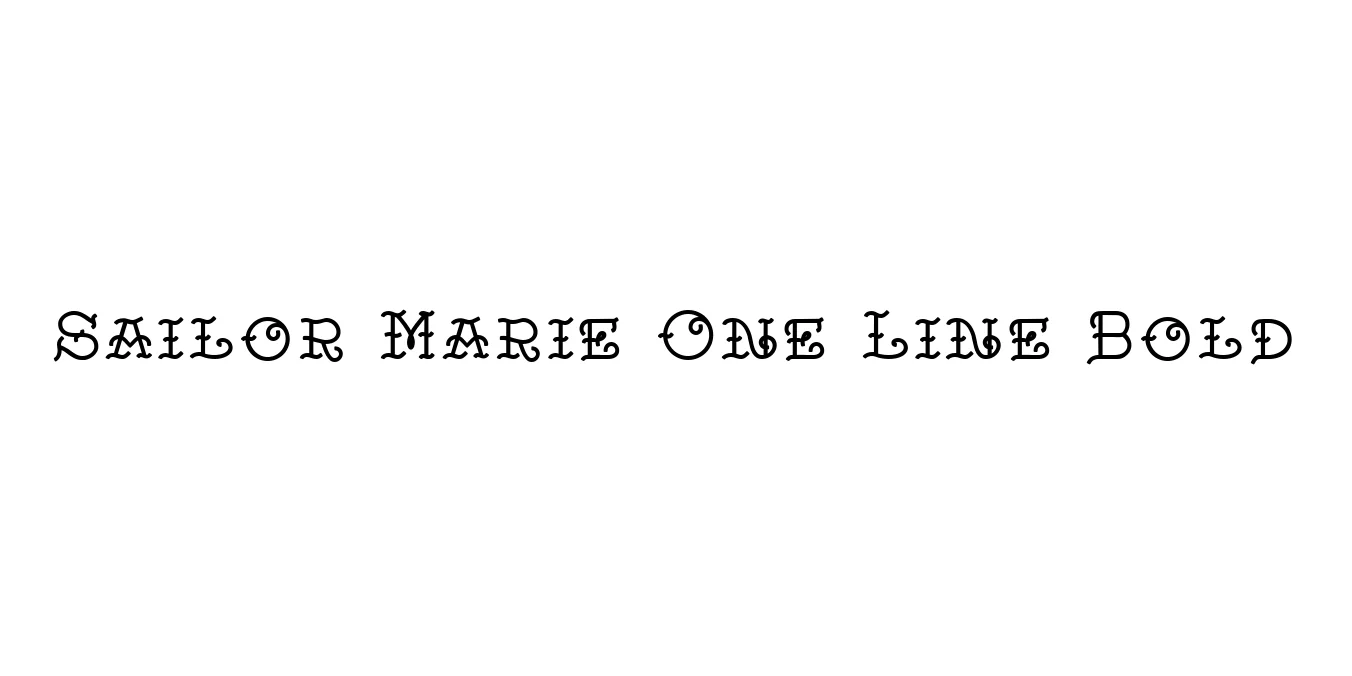
Sailor Marie One Line Bold
Sailor Marie One Line Bold is a specialized typeface designed specifically for modern crafting and precision engineering. Unlike traditional fonts that feature an outline, this single-line font is meticulously constructed from a single continuous path, making it the ideal choice for pen plotting, laser engraving, and CNC machining. It effectively eliminates the "double-line" issue common when using standard vector fonts in fabrication software.
The "Sailor Marie" family blends the charm of vintage nautical lettering with modern digital efficiency. The Bold weight ensures that the strokes remain visible and impactful even when etched into hard surfaces or drawn with thicker markers, providing a clean, monolinear aesthetic that bridges the gap between traditional hand-lettering and technical precision for makers and designers alike.
Sailor Marie One Line Bold Best Uses
Ideal for wood or metal etching where thin, single-pass lines are required to save time and energy.
Optimized for Cricut or Silhouette machines to create a realistic hand-written effect on cards.
Perfect for milling operations that follow a single vector path without the need for pocketing.
Use for elegant, plotted invitations that require a high-end, custom-inked appearance.